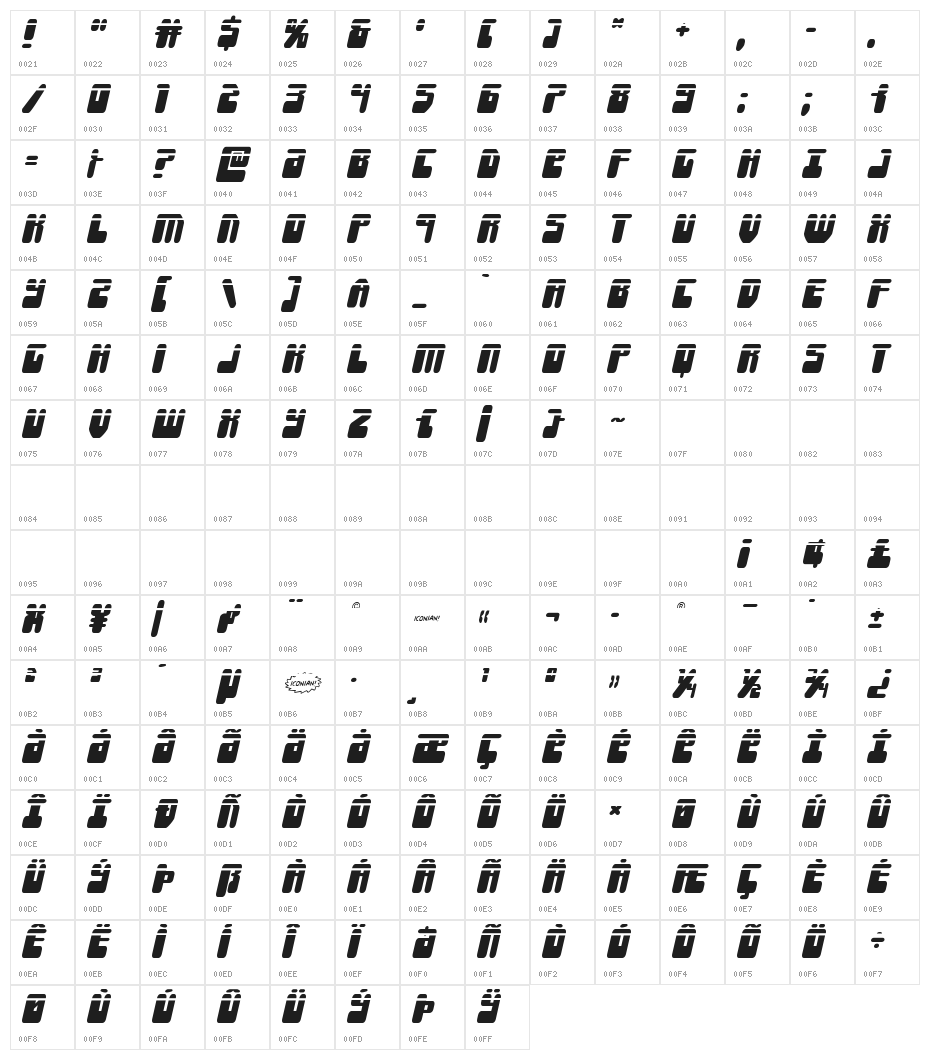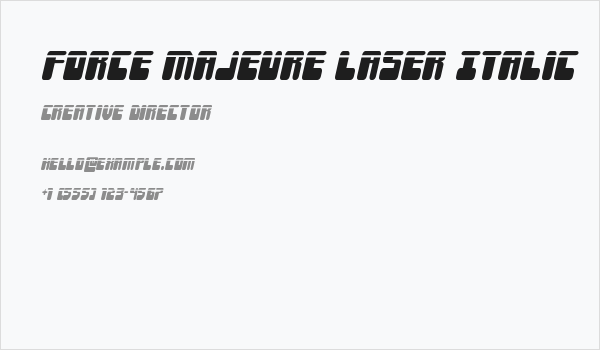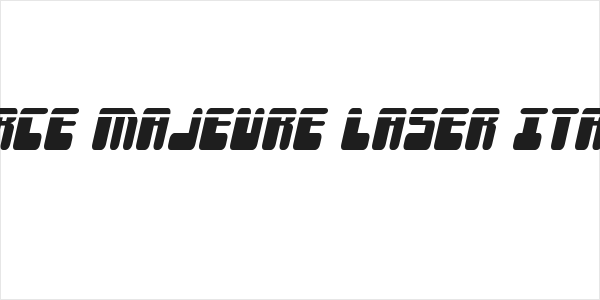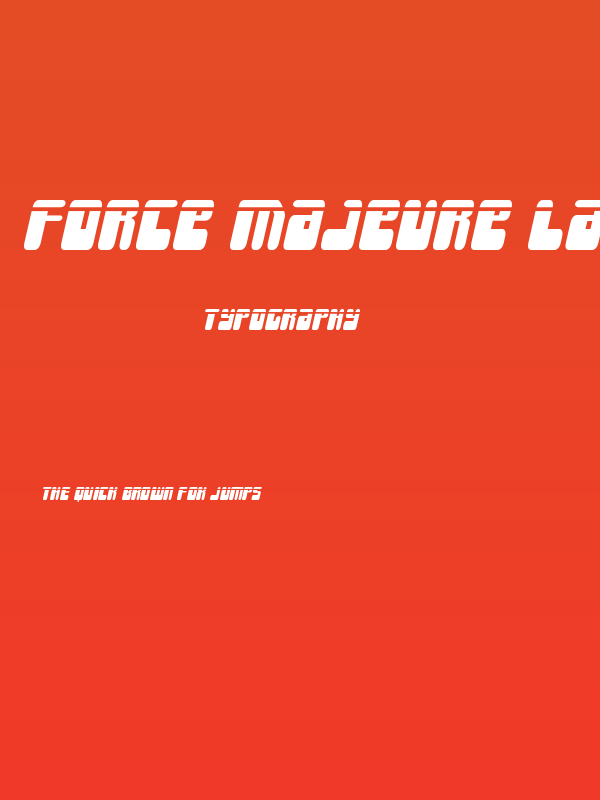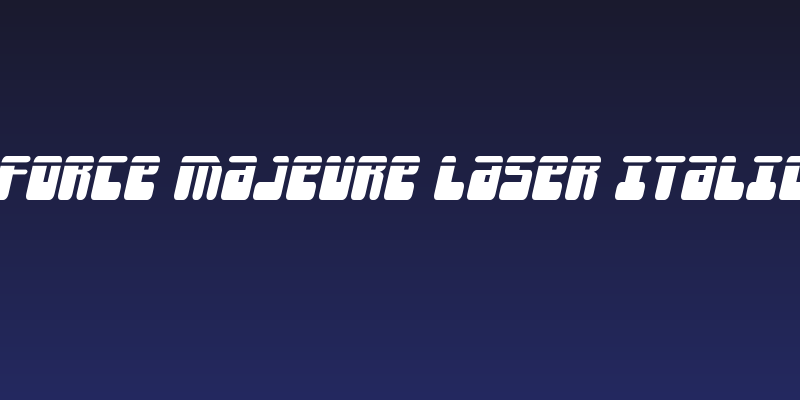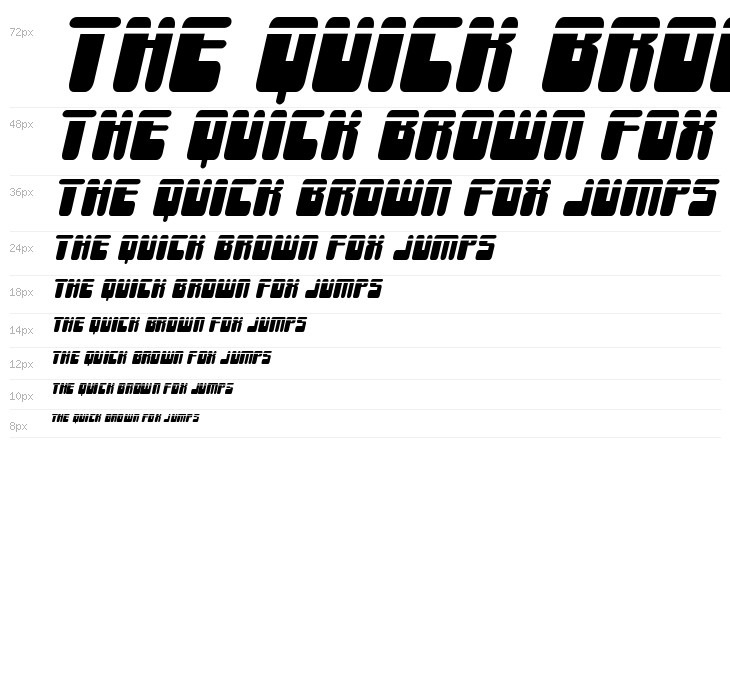
Force Majeure Laser Italic Font
Force Majeure Laser Italic Description
This font features a bold, futuristic design with a distinct italic slant, giving it a dynamic and forward-moving appearance. The characters are wide and blocky, with rounded edges that soften the overall look. The design incorporates a stencil-like effect, with strategic gaps in the strokes that add a unique, industrial feel. The uppercase and lowercase letters maintain a consistent style, ensuring readability while adding a touch of modernity. The numerals and special characters follow the same design principles, making them cohesive with the alphabetic characters. This font is ideal for projects that require a strong, impactful visual presence.
| Proposed Projects | Ideal for sci-fi themed designs, technology branding, video game titles, and modern posters. |